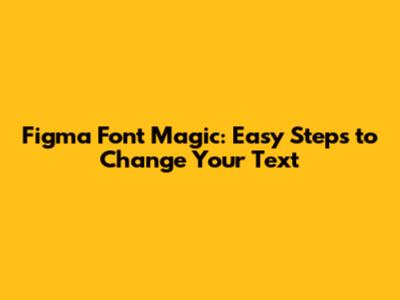
Hey designers! Ever found yourself staring at your Figma project, thinking, "Man, this font just isn't cutting it?" We've all been there, right? Well, guys, you're in luck because today we're diving deep into how to change fonts in Figma like a total pro. It's not just about slapping on any old typeface; it's about choosing fonts that speak to your design, convey the right message, and make your work pop. We'll cover everything from the basics of accessing font options to some cool tricks that'll elevate your typography game. So, grab your favorite beverage, settle in, and let's get this font party started!
The Absolute Basics: Swapping Fonts in Figma
Alright, let's start with the nitty-gritty. You've got text in your Figma canvas, and you're ready to give it a makeover. The process is super straightforward, and honestly, it's one of the first things you'll learn. First things first, you need to select the text layer you want to edit. You can do this by clicking directly on the text box on your canvas or by finding it in the layers panel on the left-hand side. Once your text is selected, head over to the right-hand sidebar. This is Figma's command center for all things styling. Look for the 'Text' section. You'll see the current font name displayed prominently. Click on that font name, and BAM! A dropdown menu will appear, showcasing a whole universe of fonts available to you. This list includes any fonts you have installed on your computer and any Google Fonts that you've enabled within Figma. Scrolling through this list might feel a bit overwhelming at first, especially if you have a ton of fonts installed. But don't sweat it! You can start typing the name of the font you're looking for directly into the search bar above the list. This is a lifesaver, trust me. Found the one you want? Just click on it, and your selected text will instantly update. Boom! Font changed. It's that simple to swap out fonts in Figma. But wait, there's more! Beyond just changing the font family, you also have options to adjust the font weight (like Regular, Medium, Bold, Black), the font style (Italic), and the font size right within this same 'Text' panel. So, while we're focusing on how to change fonts in Figma, remember that this panel is your go-to for all your typographic needs. It's the foundation, the bedrock, the absolute starting point for controlling how your text looks and feels.
Diving Deeper: Font Weights, Styles, and Variable Fonts
Okay, so you've mastered the art of swapping font families. High five! But what if you want to fine-tune the look of that font even further? This is where understanding font weights and styles comes into play, and it's crucial for adding depth and hierarchy to your designs. Most fonts come with a range of weights. Think of 'Regular' as your standard, everyday font. Then you have 'Light' or 'Thin' for a more delicate feel, 'Medium' for a slightly bolder touch, 'Bold' for emphasis, and sometimes even 'Black' or 'Extra Bold' for maximum impact. You'll find these options directly below the font family selection in the 'Text' panel. Experimenting with different weights is key to creating visual contrast. For instance, you might use a bold weight for headings and a regular weight for body text. This helps guide the reader's eye and makes your content much easier to digest. Beyond weight, there's also 'Style'. The most common style you'll encounter is 'Italic'. Italics are fantastic for quoting someone, emphasizing a specific word or phrase, or even for stylistic flair in certain design contexts. Again, you'll find this option right there in the 'Text' panel. But here's where things get really exciting: Variable Fonts. Have you guys played with these yet? Variable fonts are a game-changer. Instead of having separate files for each weight and style (like 'OpenSans-Regular.ttf', 'OpenSans-Bold.ttf'), a single variable font file contains all those variations within it. This means you can often select a specific font and then use sliders within Figma to adjust its weight, width, slant, and other characteristics with incredible precision. It's like having an infinite library of font variations at your fingertips! To access these, you usually need to select a variable font family, and then you'll see a 'Variable' section pop up, often with sliders or specific numerical inputs to control different axes of the font. Mastering these nuances will significantly boost your skills in how to change fonts in Figma and make your designs more sophisticated and professional. Don't just change the font; craft it.
Leveraging Google Fonts and Local Fonts in Figma
Now, let's talk about the source of your fonts. When you're looking at that dropdown list in Figma and wondering where all these fonts are coming from, it's usually a mix of two main categories: Google Fonts and your local fonts. Understanding how to manage both is essential for any serious Figma user. Google Fonts are a treasure trove of free, high-quality typefaces that Google makes available for everyone. Figma has fantastic integration with Google Fonts, meaning you can browse, select, and use thousands of them directly within your project without needing to download and install anything separately. To make sure you're seeing all the Google Fonts you might want, go to the 'Text' panel, click on the font dropdown, and look for an option like 'Browse more fonts' or a similar link. This will open up the Google Fonts library within Figma, where you can preview fonts, see their different weights and styles, and then hit 'Enable' or 'Add to Figma'. Once enabled, they'll appear in your main font list. It's super convenient! On the other hand, you also have your Local Fonts. These are the fonts that are installed directly on your operating system – your Mac or Windows computer. If you've downloaded fonts from various foundries or purchased premium typefaces, they'll reside here. For Figma to be able to use your local fonts, you typically need to have the Figma desktop app installed. The browser version of Figma generally can't access your system fonts for security reasons. So, if you're using Figma in the browser and can't find a font you know you have installed, download the desktop app! It's usually the solution. Having both Google Fonts and local fonts at your disposal gives you immense flexibility. You can stick to readily available, free options or use those unique, premium fonts that really define your brand. Knowing how to manage and utilize both effectively is a key part of mastering how to change fonts in Figma and ensuring consistency across your design system.
Font Pairing: Making Your Chosen Fonts Harmonize
So, you've figured out how to change fonts in Figma, you're experimenting with weights and styles, and you've got access to a gazillion fonts. Awesome! But here's a crucial question: how do you make them work together? This is where the art of font pairing comes in. Simply choosing a font you like isn't enough; you need to ensure that the fonts you select for different elements in your design actually complement each other. Bad font pairings can make your design look chaotic, unprofessional, and hard to read. Good font pairings, on the other hand, can elevate your design from 'meh' to 'wow!' So, what makes a good pair? Generally, you want to create contrast, not conflict. Think about pairing a serif font (like Times New Roman, with the little feet) with a sans-serif font (like Arial, without the feet). This classic combination creates a clear visual distinction. The serif font, often seen as more traditional and readable for long blocks of text, can be used for body copy, while a clean, modern sans-serif can be used for headings, calls to action, or captions. Another approach is to pair fonts from the same font family but with different characteristics. For example, you could use a bold, sans-serif font for your main heading and a lighter, italicized version of the same sans-serif font for a subheading or a quote. This creates a cohesive look while still maintaining hierarchy. The key is to ensure they have distinct personalities but share some underlying harmony. Avoid pairing fonts that are too similar; they'll end up competing and confusing the reader. For instance, two sans-serif fonts with very similar x-heights and stroke contrasts might look like a mistake rather than an intentional pairing. When you're in Figma, use the 'Preview' feature extensively. Select your heading font, then select your body text font, and see how they look side-by-side. Play with sizes, weights, and spacing until you find a combination that feels right. Resources like Google Fonts also often suggest popular and well-tested font pairings, which can be a great starting point if you're feeling lost. Mastering font pairing is a vital step beyond just knowing how to change fonts in Figma; it's about using typography strategically to enhance your message and aesthetic.
Advanced Typography: Line Height, Letter Spacing, and More
We've covered the essentials of how to change fonts in Figma, from basic selection to smart pairing. But for those who want to truly master typography, there are a few more advanced settings in Figma's 'Text' panel that can make a world of difference. Let's talk about line height, also known as leading. This is the space between lines of text. If your line height is too tight, your text can feel cramped and difficult to read, especially for longer paragraphs. If it's too loose, it can feel disconnected and airy. A good rule of thumb for body text is often to set your line height to about 1.4 to 1.6 times your font size. So, if your font is 16px, try a line height of around 22px to 26px. You can adjust this directly in the 'Text' panel using the line height input, usually represented by an icon with two lines of text and an up/down arrow. Next up is letter spacing, also called tracking. This refers to the overall space between characters in a block of text. Increasing letter spacing can sometimes make text feel more refined and airy, especially in headings or large display text. Decreasing it can make text feel tighter and more compact. Be cautious with this one, though; too much or too little can negatively impact readability. You'll find the letter spacing control next to the line height option. Then there's paragraph spacing (or auto height/width adjustments). Figma allows you to control the spacing between paragraphs, which is crucial for breaking up content and improving scannability. You can set a fixed paragraph indent or, more commonly, adjust the spacing after a paragraph. This is often done using the 'Paragraph spacing' setting, usually found below line height and letter spacing. Finally, let's not forget alignment. While often straightforward (left, center, right, justified), the choice of alignment can significantly impact the flow and readability of your text. Left-aligned is generally the most readable for English text. Justified text can look neat but can create awkward gaps between words, especially in narrower columns. Experimenting with these advanced typographic controls is what separates good design from great design. It's these subtle adjustments that show you've truly thought about how to change fonts in Figma and how they interact with the reader's experience. So, play around, test, and refine – your readers will thank you!
Troubleshooting Common Font Issues in Figma
Even when you know how to change fonts in Figma, sometimes things just don't work as expected. It happens to the best of us, guys! Let's tackle some common font-related headaches you might encounter. One of the most frequent issues is missing fonts. You open a file, and suddenly, instead of your beautiful chosen typeface, you see a generic fallback font like Arial or Helvetica, often with a little warning icon. This almost always means the font used in the file isn't available on your system or hasn't been loaded into Figma correctly. If you're using the Figma desktop app, ensure the font is properly installed on your computer. Sometimes, reinstalling the font helps. If you're using the browser version and need local fonts, remember, you need the desktop app. For Google Fonts, make sure you've enabled them within Figma as we discussed earlier. Another issue can be fonts looking fuzzy or rendering poorly. This can sometimes happen with certain font files or due to display scaling settings on your computer. Ensure your Figma app is updated to the latest version, as updates often include improved font rendering. Also, check your operating system's display scaling settings; sometimes, non-standard scaling can cause font rendering glitches. If a specific font seems problematic across different projects, it might be an issue with the font file itself. Try downloading a fresh copy or using an alternative. Font substitution is another thing to watch out for. Figma might automatically substitute a font if it can't find the exact match. While helpful, this can change the intended look and feel of your design. Always double-check that the font displayed in the 'Text' panel is the one you intended. Lastly, issues with variable fonts can crop up. If the sliders aren't behaving as expected, or if the variable font isn't showing its range of options, ensure you're using a font file that is genuinely a variable font and that Figma recognizes it as such. Sometimes, older or improperly formatted variable fonts might not work correctly. By understanding these common pitfalls and knowing how to troubleshoot them, you'll have a much smoother experience when learning how to change fonts in Figma and ensuring your designs look exactly as you intended. Don't let font woes get you down; a little troubleshooting goes a long way!